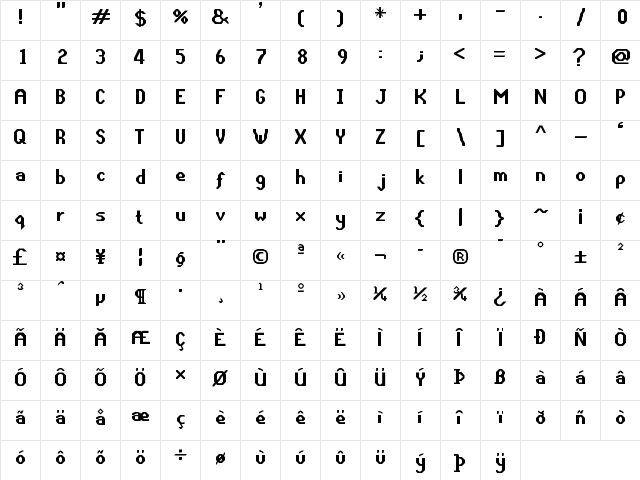
RuneScape Smooth Chat Bold 2 Regular
| Designer | WolfieMario |
Design Context for RuneScape Smooth Chat Bold 2 Typeface
RuneScape Smooth Chat Bold 2 is a composed and adaptable typeface that performs quietly and consistently across a wide range of design contexts. The heavy weight commands attention and anchors typographic hierarchies.